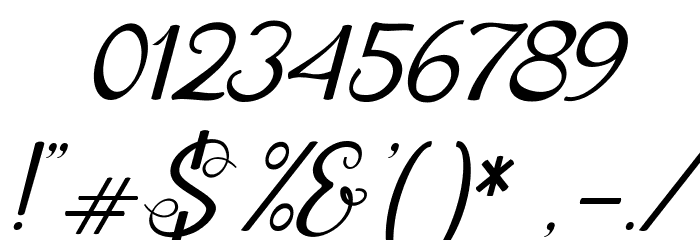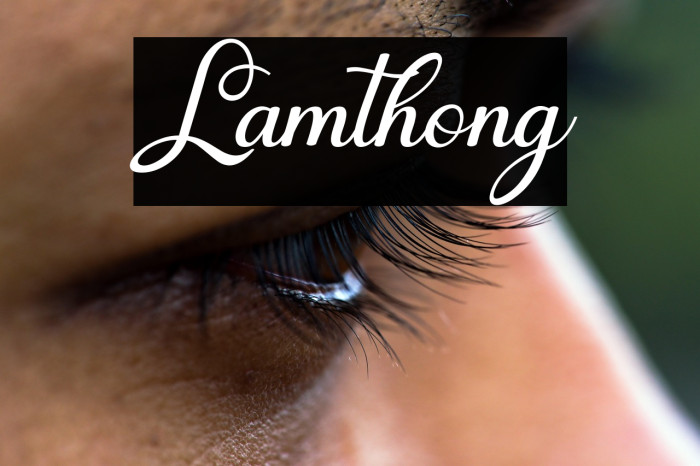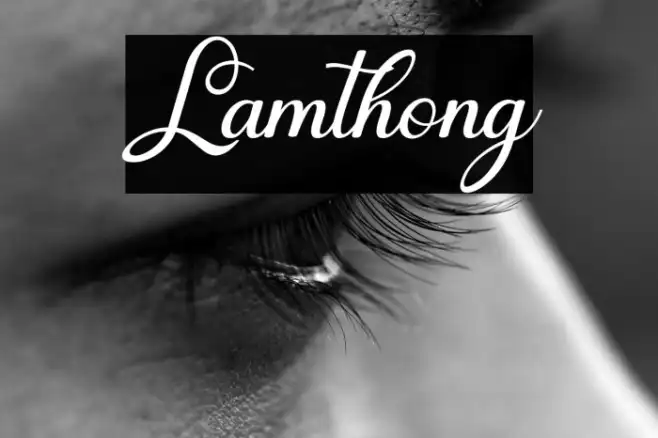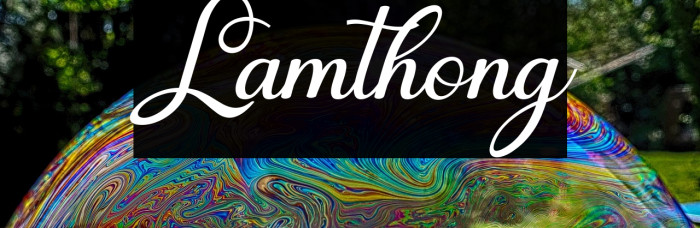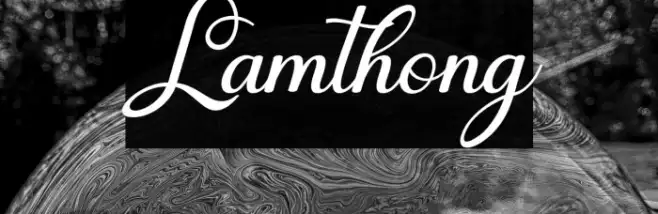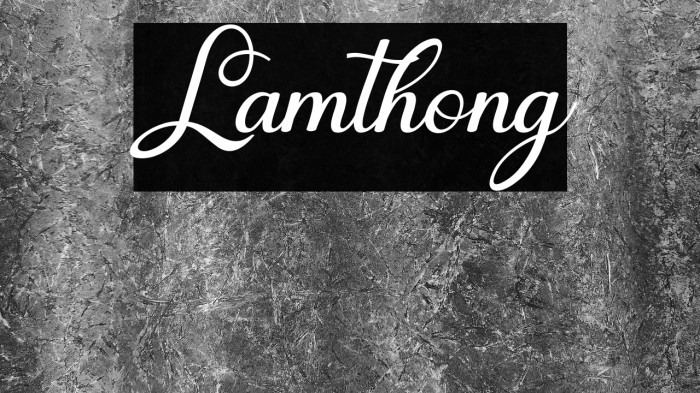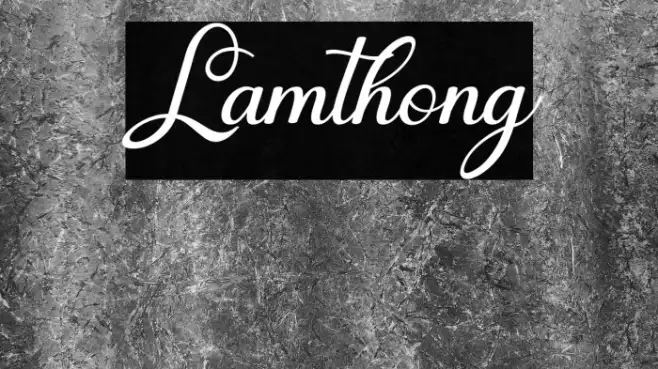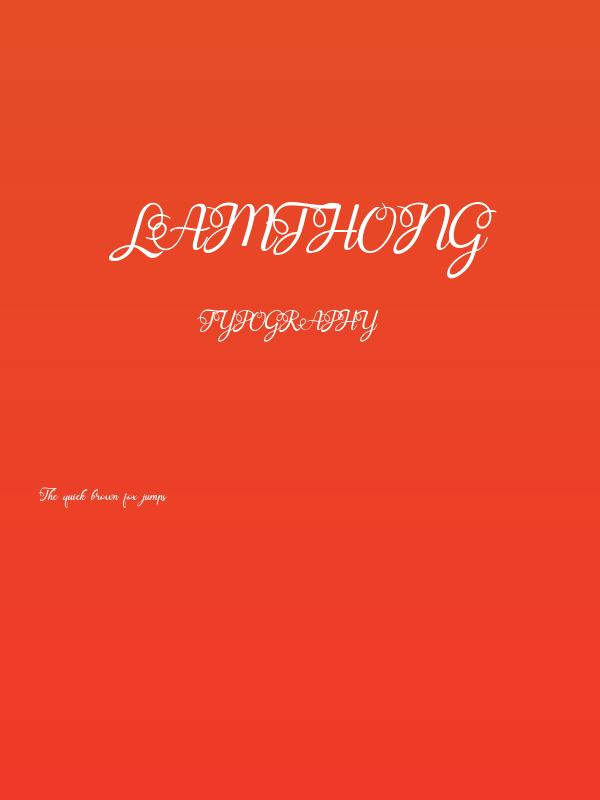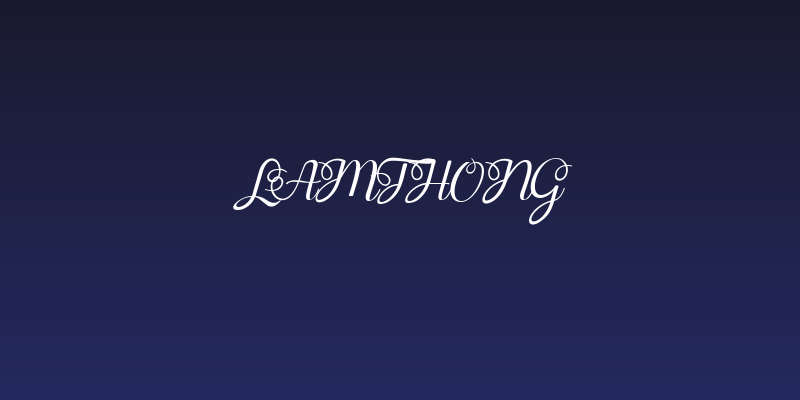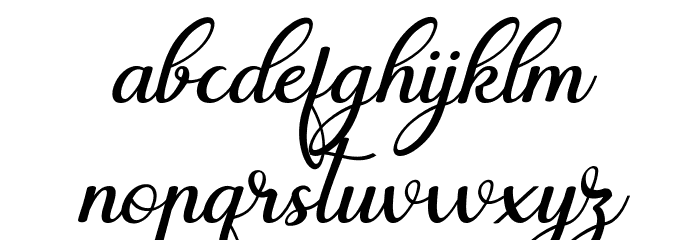
Lamthong Font
Lamthong Description
This elegant script font features a flowing, cursive style with intricate loops and swashes that give it a sophisticated and decorative appearance. The uppercase letters are particularly ornate, with flourishes that extend beyond the baseline and cap height, creating a sense of movement and grace. The lowercase letters maintain a consistent style, with smooth curves and a slightly slanted orientation that enhances readability. Numbers and special characters are designed to match the overall aesthetic, ensuring a cohesive look across all text elements. The font's high contrast between thick and thin strokes adds to its visual appeal, making it suitable for formal and decorative applications.